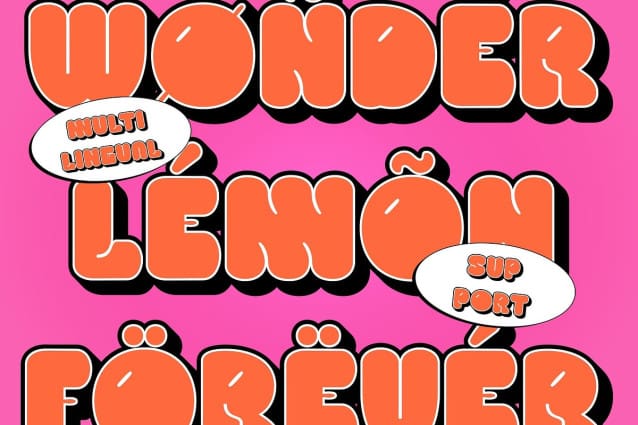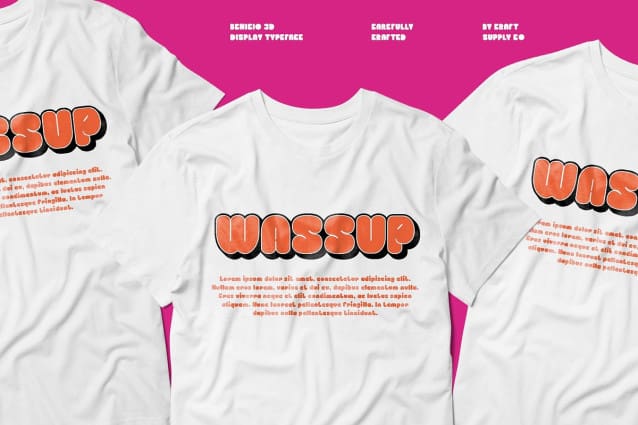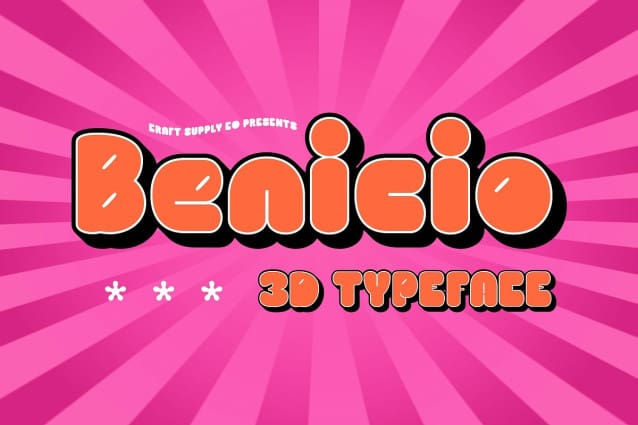
Benicio 3D Font
Benicio 3D Font is a bold, bubble-shaped display font that combines whimsy and fun with striking 3D depth. The rounded, soft edges create a playful vibe, while the 3D effect adds a sense of dimension and depth, making the font come to life. Its charming and cheerful design is perfect for creating an engaging and youthful atmosphere in any project.
Ideal for Children’s Materials and Playful Branding With its friendly and approachable look, Benicio 3D is perfect for designs aimed at children or projects that require a sense of playfulness and lightheartedness. Whether you’re working on children’s books, toys, posters, or playful branding, this font adds a dynamic and engaging presence to your designs. Its 3D effect makes it stand out, ensuring that your message gets noticed in an energetic and fun way.
Captivating for Fun and Engaging Designs The combination of bubble shapes and 3D depth in Benicio 3D makes it a perfect choice for projects that need an eye-catching, fun element. From creative posters and event promotions to children’s product packaging, this font brings joy and excitement to any design. Its bold, rounded forms are designed to create a cheerful atmosphere and captivate the viewer’s attention, while the 3D effect adds extra visual impact.